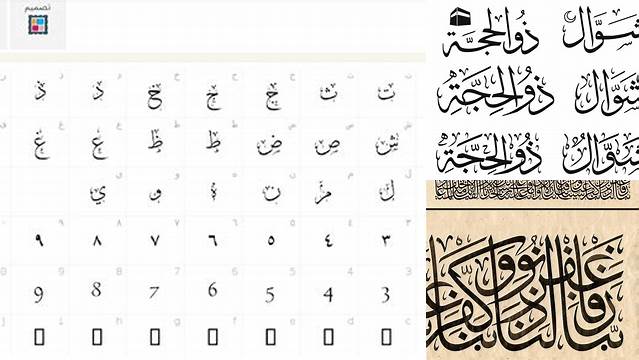
Tsuluts Font: Free Download & Creative Uses
Understanding the Appeal of Tsuluts Font
The Tsuluts font, guys, is seriously one of those unique typefaces that just catches your eye. When you're scrolling through endless options for your next design project, something like Tsuluts font really stands out. Its distinctive style, often characterized by its flowing, organic strokes and perhaps a touch of retro flair, makes it a fantastic choice for a variety of applications. Whether you're a seasoned graphic designer or just starting out with your blog or social media graphics, having a font like Tsuluts in your toolkit can be a game-changer. It’s not just about letters; it’s about the personality and vibe they convey. The Tsuluts font, in particular, seems to bridge the gap between playful and sophisticated, making it incredibly versatile. We're going to dive deep into why this font is so popular, where you can snag it for free, and how you can best utilize its charm in your own creative endeavors. So, get ready to explore the world of Tsuluts font, because it’s a journey worth taking for any design enthusiast looking to add a special touch to their work. This font isn't just about legibility; it's about making a statement and leaving a lasting impression. Its unique character makes it a memorable element in any design composition, ensuring your message is not only seen but also felt.
Exploring the Versatility of Tsuluts Font
What makes a font truly valuable? It's its ability to adapt, to fit seamlessly into different design contexts, and that’s precisely where the Tsuluts font shines. We're talking about a typeface that can transition from a quirky headline on a social media post to an elegant header on a wedding invitation, and nail it every time. Think about your branding projects, guys. If you're building a brand identity for a small business, a coffee shop, or a creative agency, Tsuluts font can bring a unique personality that resonates with customers. Its inherent charm can make logos more memorable and approachable. For web design, Tsuluts font can be used for body text if it’s legible enough, or more commonly, for headings and subheadings to add that extra bit of visual interest. Imagine a travel blog using Tsuluts font for destination titles – it just sets the mood perfectly, right? Even in print design, like flyers, posters, or magazine layouts, this font can create eye-catching elements that guide the reader’s attention. Its versatility is truly its superpower, allowing you to express a range of emotions and styles without needing to switch to a completely different font family. This adaptability means you get more bang for your buck, creatively speaking, even when it’s a free download.
Tsuluts Font for Branding and Logos
When it comes to crafting a brand’s visual identity, the font choice is absolutely critical, and the Tsuluts font is a strong contender for making a memorable mark. If you’re building a brand from scratch, or perhaps looking to refresh an existing logo, incorporating Tsuluts font can infuse your identity with a distinctive character. Its unique curves and shapes can make a logo instantly recognizable and leave a lasting impression on your target audience. For businesses aiming for a friendly, approachable, or perhaps slightly quirky image, Tsuluts font is an excellent fit. Imagine a boutique bakery using this font for their signage and packaging; it instantly communicates warmth and artisanal quality. Or consider a startup in the creative tech space that wants to convey innovation with a touch of personality – Tsuluts font can help achieve that balance. The key is to use it strategically. While it might be too stylized for extensive body text, it’s perfect for brand names, taglines, or key calls to action. A well-placed Tsuluts font in your logo can communicate a story and evoke a specific feeling, making your brand more relatable and impactful. So, when you’re thinking about your brand’s voice, consider how Tsuluts font can help you speak it visually, making your brand’s personality pop.
Creative Applications of Tsuluts Font in Design
Beyond logos and headlines, the Tsuluts font opens up a world of creative possibilities for designers. Let’s get real, guys, sometimes standard fonts just don’t cut it when you want your design to sing. This is where unique typefaces like Tsuluts come into play. Think about creating eye-catching social media graphics. A catchy quote overlaid on a stunning background using Tsuluts font can grab attention instantly. For Instagram stories or Facebook posts, its personality can make your content more engaging. Product packaging is another area where Tsuluts font can make a real difference. Imagine it on artisanal soap labels, craft beer bottles, or even handmade jewelry tags – it adds that touch of handcrafted charm that consumers love. Invitations for special events, like birthdays, anniversaries, or even informal gatherings, can benefit immensely from Tsuluts font. It can set a unique tone, making your event feel more personal and exciting. Even in digital design, like website banners, email newsletters, or app interfaces, using Tsuluts font for specific elements can add a delightful visual flair. The key is to pair it thoughtfully with more neutral fonts to ensure readability and maintain a professional look. Experimenting with different weights and styles of Tsuluts font, if available, can also unlock even more creative potential for your projects.
Enhancing Readability with Tsuluts Font Pairings
Choosing the right font pairing is like choosing the right dance partner for your design – they need to complement each other to create a harmonious whole. When you're using a distinctive font like Tsuluts, finding a suitable companion font is key to ensuring your design is not just stylish but also readable. Tsuluts font often has a strong personality, which means it might not be the best choice for large blocks of body text where clarity is paramount. Instead, think of Tsuluts as the star of the show for headlines, subheadings, or short, impactful phrases. For the supporting role – the body text – you’ll want a font that is clean, simple, and highly legible. Classic choices that often work well include sans-serif fonts like Open Sans, Lato, or Roboto, or even a simple serif font like Merriweather or Georgia. The contrast between the stylized Tsuluts font and a more understated partner creates visual interest and directs the reader's eye effectively. When pairing, consider the overall mood you want to convey. If Tsuluts brings a playful vibe, a neutral sans-serif can balance it out. If Tsuluts has an elegant feel, a classic serif could be its perfect match. Experiment with different combinations to see what resonates best with your specific project. The goal is to create a hierarchy where Tsuluts font grabs attention, and the secondary font ensures the information is easily digestible, guys. It’s all about creating a balanced and beautiful typographic ecosystem.
Tsuluts Font in Print Media: Flyers and Posters
When it comes to making a splash in the physical world with flyers and posters, the Tsuluts font can be an absolute showstopper. Its unique character lends itself perfectly to grabbing attention from a distance, which is exactly what you need for effective print advertising. Imagine a concert poster with the band's name in a bold, striking Tsuluts font – it immediately conveys energy and style. Or think about a local event flyer announcing a farmers market or a craft fair; Tsuluts font can add a touch of local charm and authenticity. For posters, especially those with a strong visual focus, using Tsuluts font for the main title or key information like dates and locations can make them pop. It’s often best to use it for impactful headlines rather than lengthy text. If you need to include more detailed information, pair Tsuluts font with a simpler, highly readable font to ensure the message is clear. Consider the context: for a vintage-themed event, Tsuluts font might fit perfectly; for a corporate seminar, perhaps less so. Print design also allows you to play with color and texture in conjunction with the font. A carefully chosen color for your Tsuluts text can enhance its impact and ensure it stands out against the background. When designing, always remember to check the print resolution of your files to ensure the Tsuluts font looks crisp and professional, not blurry or pixelated. This attention to detail will make your printed materials truly shine, guys.